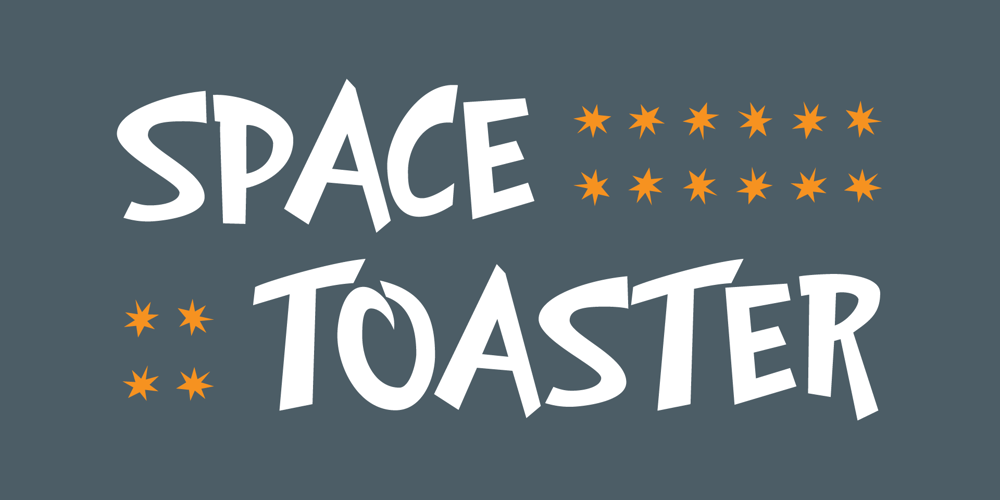
Space Toaster
Space Toaster font
Space Toaster Font Family was designed by Chank Diesel and published by Chank. Space Toaster contains 2 styles and family package options. What are your super powers? Space Toaster was created by Chank Diesel in 1995 as a custom font for the Cartoon Network’s “Space Ghost Coast to Coast” web site. This font represents the printed voice of talk show host Space Ghost, the greatest super hero ever. Since it’s original release in 1995 Space Toaster’s character set has been bulked up and the kerning has been vastly improved.